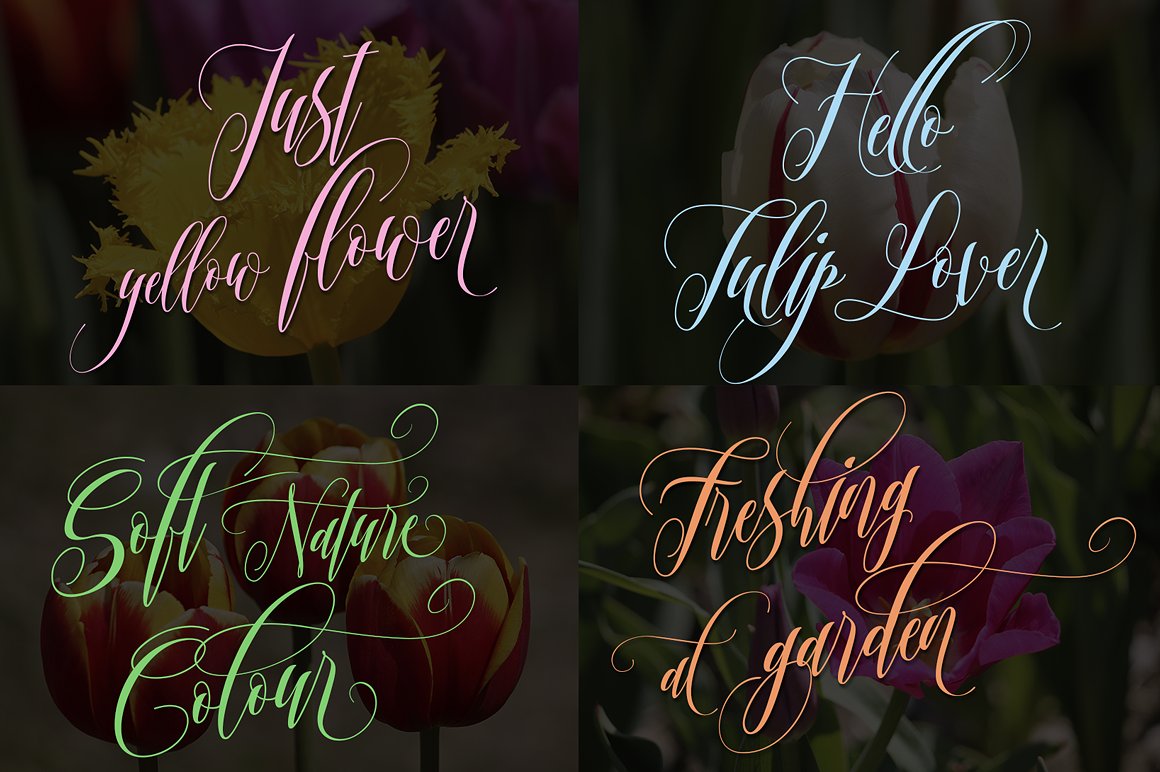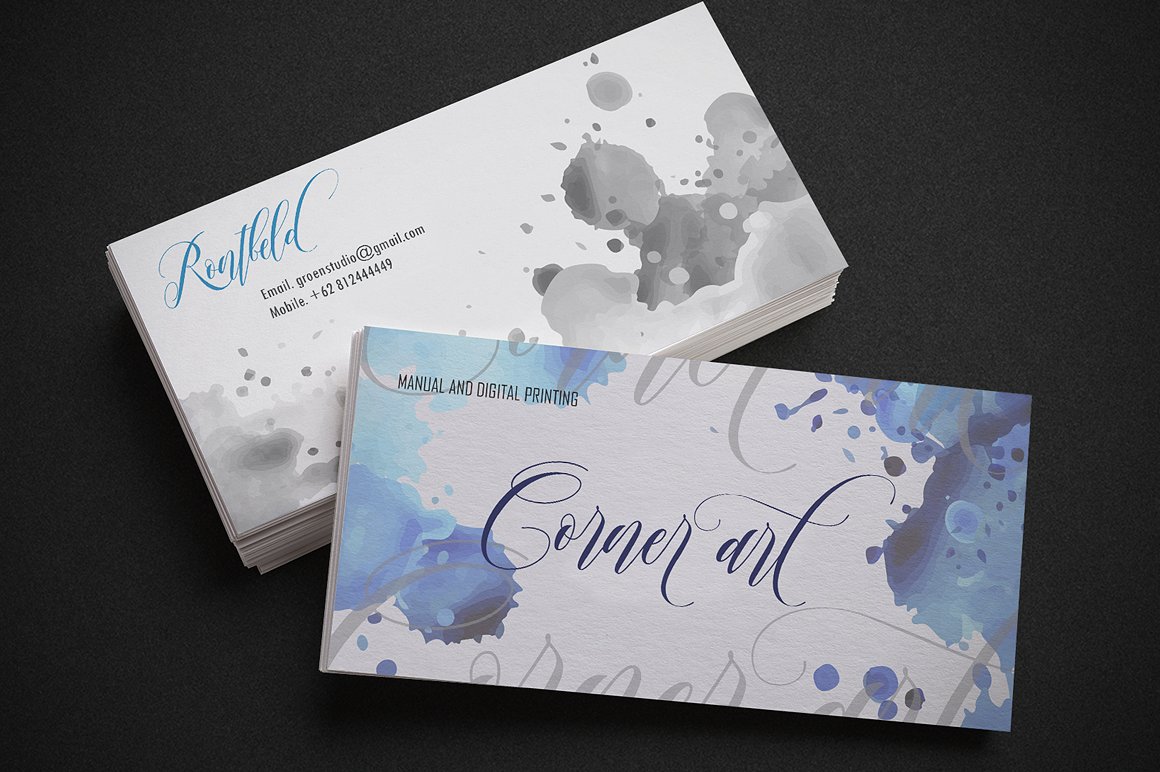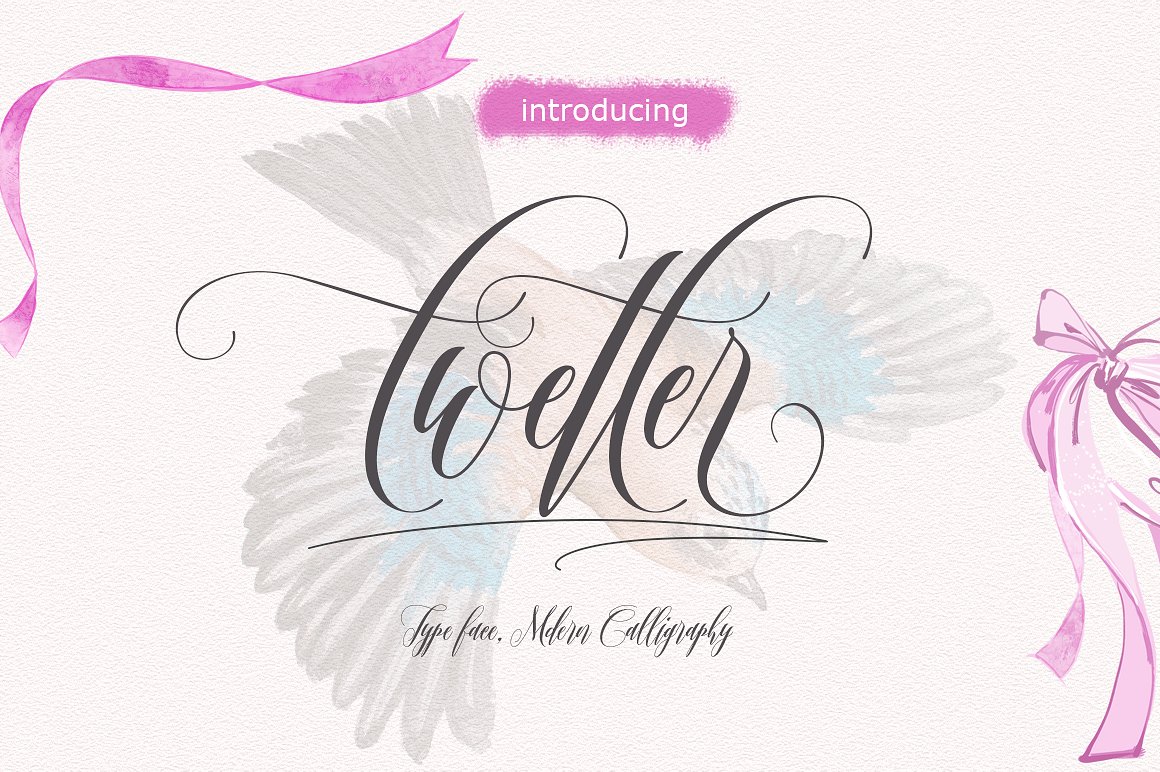
Twetter Script Font
A stylish calligraphy font that features a varying baseline, smooth line, classic and elegant touch. Introducing Twetter Font. Twetter is a font that made the hand by having the character up and down like a dancer. Twetter has a very unique style of calligraphy, it is very suitable for use in the work of modern design. Can be used for various purposes.such as headings, signature, logos, wedding invitation, t-shirt, letterhead, signage, lable, news, posters, badges etc.